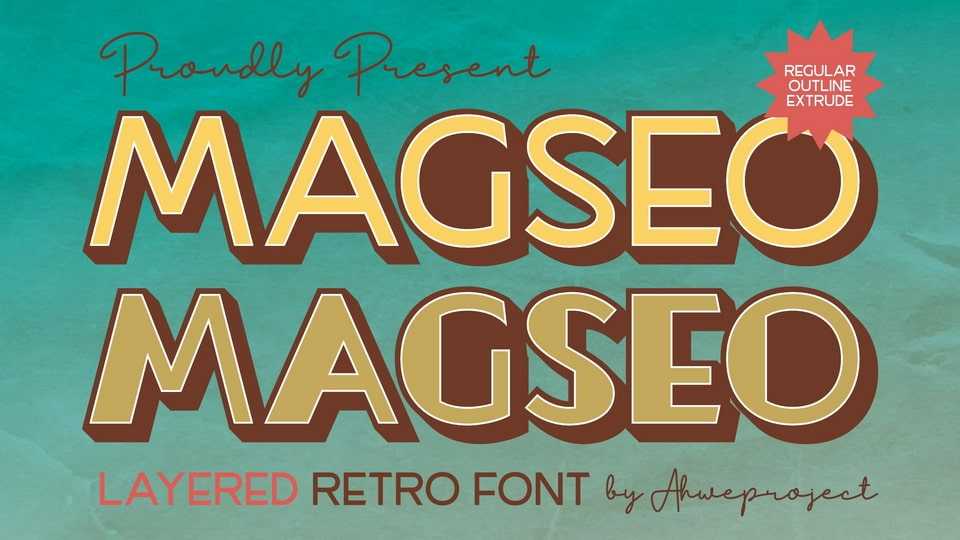
Download Magseo font, a retro-inspired sans serif typeface. With its thinly structured yet boldly distinguished lowercase letters, Magseo whispers vintage charm in every curve.